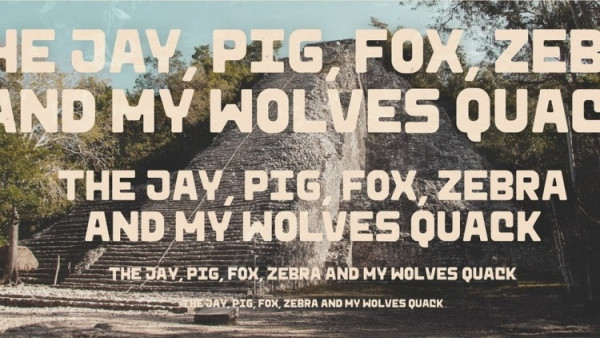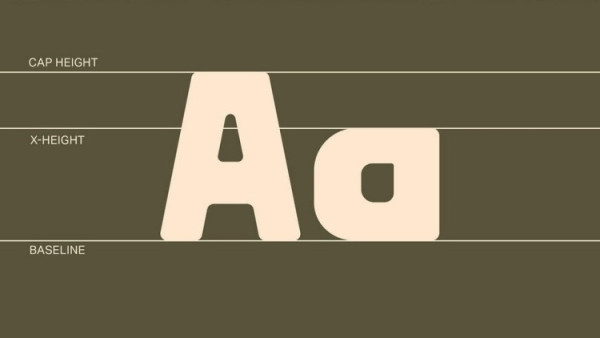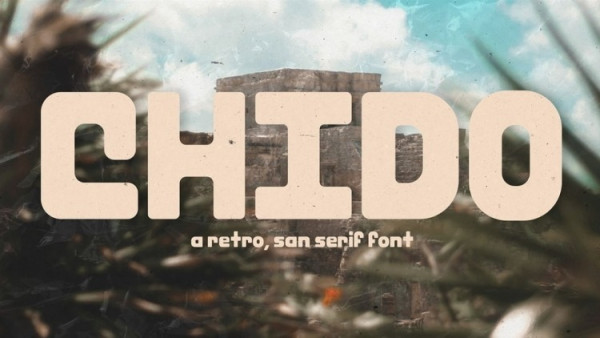
Chido Font is a bold retro sans serif font with a warm and fun vibe. It was built entirely of modular elements inspired by the eroded edges of old buildings.